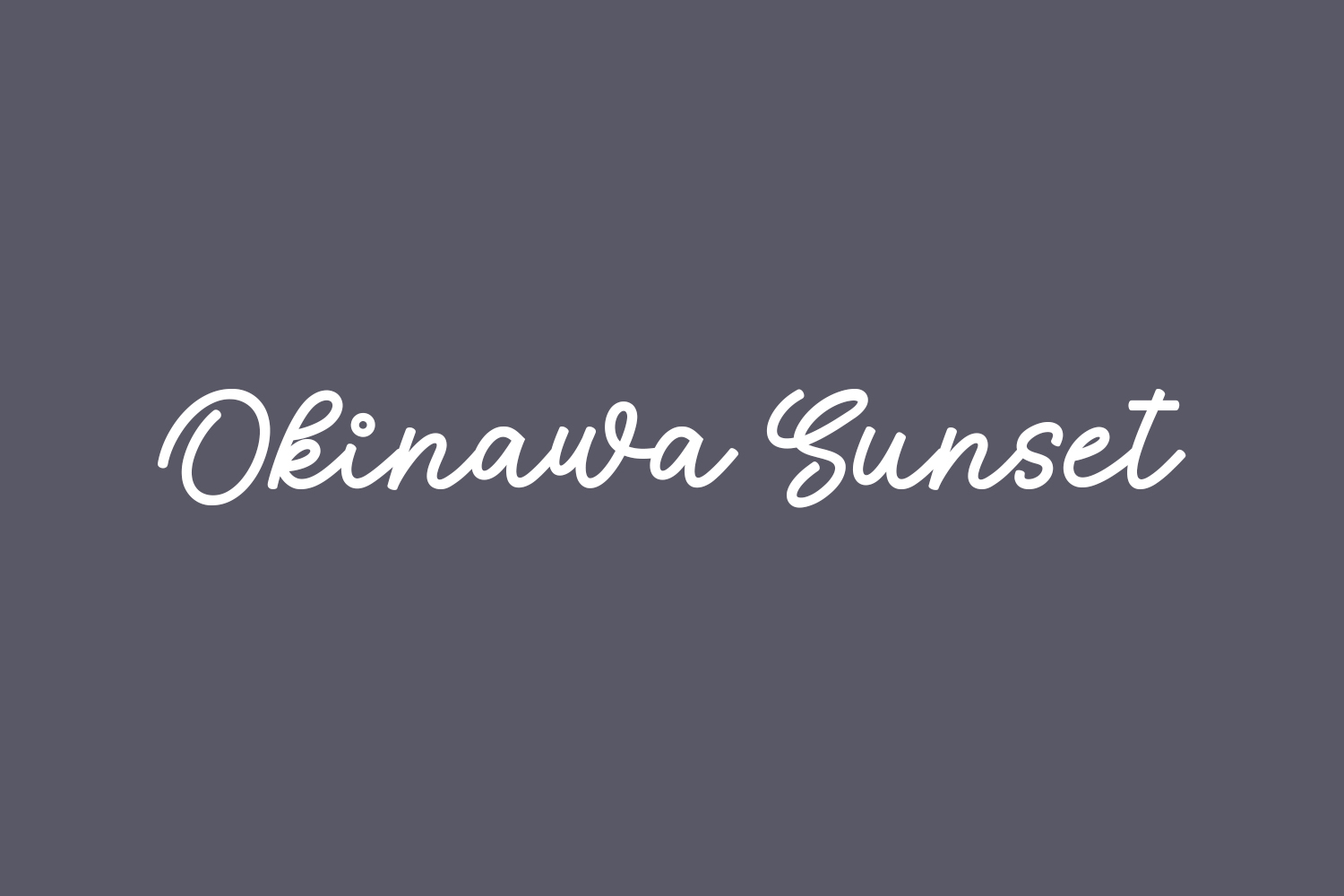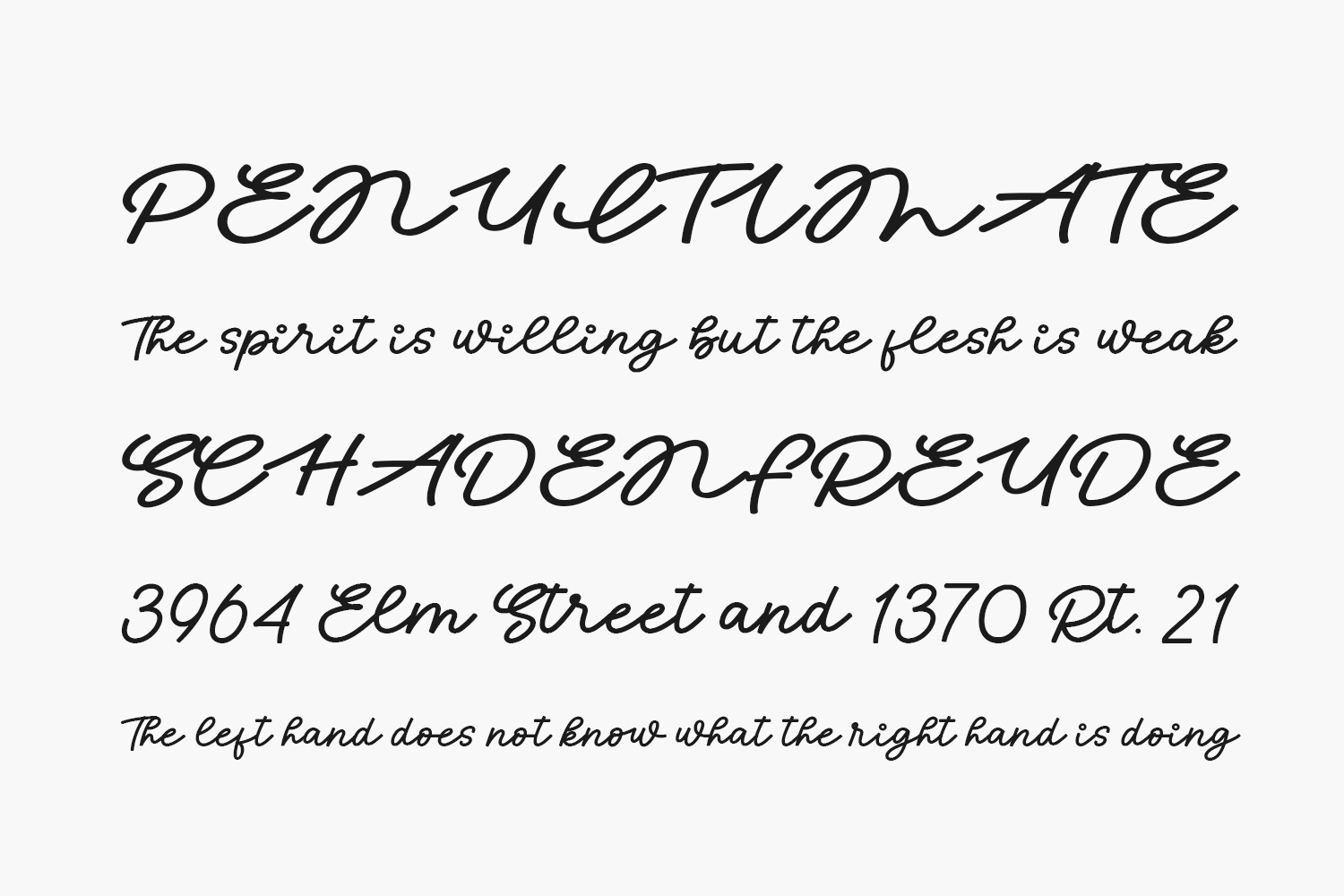
Okinawa Sunset Free Font is a delicate, elegant and flowing handwritten font. It has beautiful and well-balanced characters and as a result, it matches a wide pool of designs. Add it to your most creative ideas and notice how it makes them come alive.
Designed by Four Lines